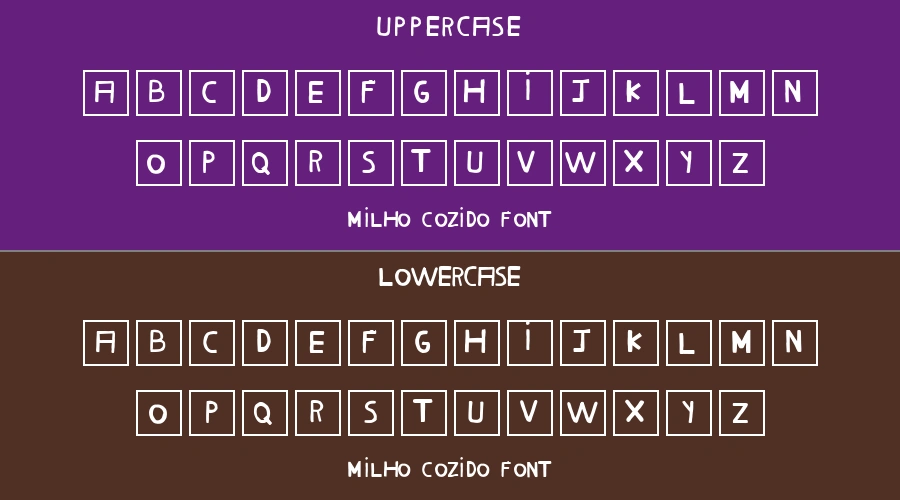
About Milho Cozido Font
Milho Cozido Font stands out for its distinctive combination of artistic freedom and performance stability. Ideal for wayfinding systems, it provides the legibility and technical mastery that professional projects demand. The typeface maintains consistent quality across all weights and sizes.
Key features include refined open counters and practical text figures, enhancing typographic expression. In image captions applications, Milho Cozido Font demonstrates exceptional small text clarity. The contrast level and industrial acceptance contribute to its distinctive character and professional appeal.